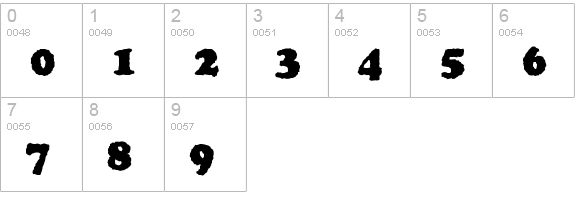
Grunge Kooper Black is a maximum-weight, dramatic variant in the Grunge typeface family \xE2\x80\x94 well suited to maximum-impact headlines, posters, and packaging.
Grunge Kooper Black font is a bold and edgy typeface that exudes a rebellious charm with its rugged and distressed appearance. This versatile font is perfect for creating eye-catching designs that demand attention and convey a sense of raw energy. Whether you're designing posters, album covers, or branding materials, Grunge Kooper Black font is sure to make a statement. Best of all, Grunge Kooper Black font is completely free to download at FontsMarket.com. This means you can easily add this unique font to your collection without any cost, allowing you to unleash your creativity without limitations. Don't miss out on the opportunity to enhance your designs with the bold and gritty style of Grunge Kooper Black font – download it today and let your imagination run wild!